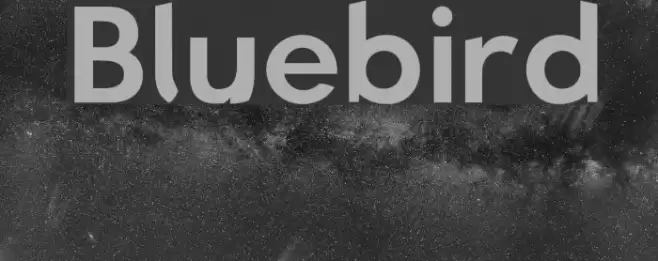
Bluebird Font
Bluebird Description
This font features a clean and modern sans-serif style with a geometric structure. The characters are bold and have a uniform stroke width, providing a strong and assertive appearance. The uppercase letters are slightly taller than average, giving a commanding presence, while the lowercase letters maintain a consistent height that complements the uppercase. The numerals are clear and easily distinguishable, making them suitable for both display and text purposes. Special characters are well-defined, adding versatility to the font's usage. Overall, the font's simplicity and clarity make it highly legible and suitable for a wide range of applications.
A bold, modern sans-serif font with geometric structure and high legibility from Uncategorized fonts.
- Proposed Projects: Ideal for branding, headlines, posters, and digital interfaces where clarity and impact are essential.
- Use Case: Headlines, Logos, Digital Interfaces